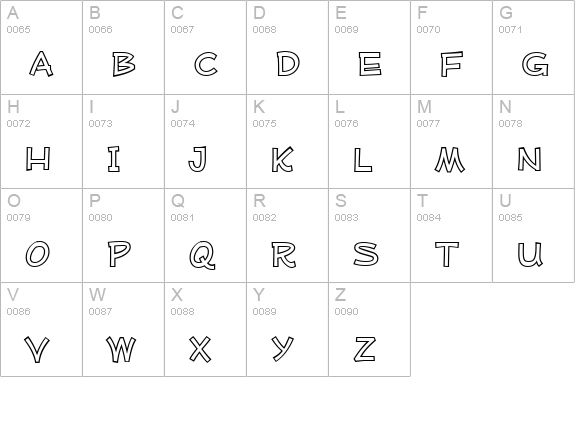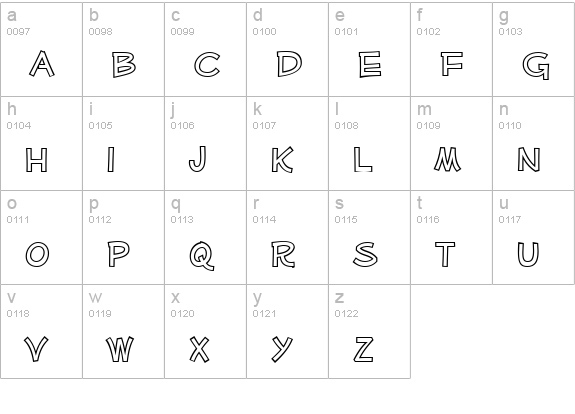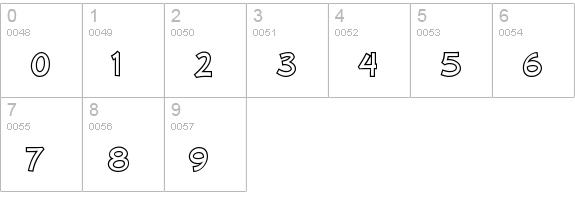
Mufferaw Outline font is a versatile and modern typeface that exudes a sense of strength and boldness. With its clean lines and sharp edges, this font is perfect for making a statement in your designs. Whether you're working on a logo, poster, or any other creative project, Mufferaw Outline font will add a touch of sophistication and professionalism. Best of all, Mufferaw Outline font is available for free download at FontsMarket.com. This means you can easily access this high-quality font without breaking the bank. Don't miss out on the opportunity to elevate your designs with the striking Mufferaw Outline font. Download it today and see the difference it can make in your projects!